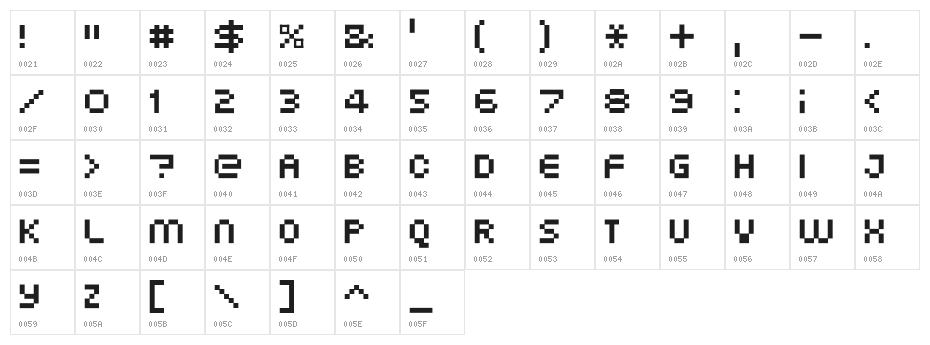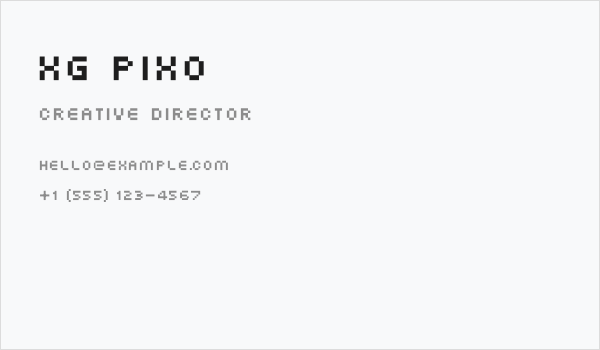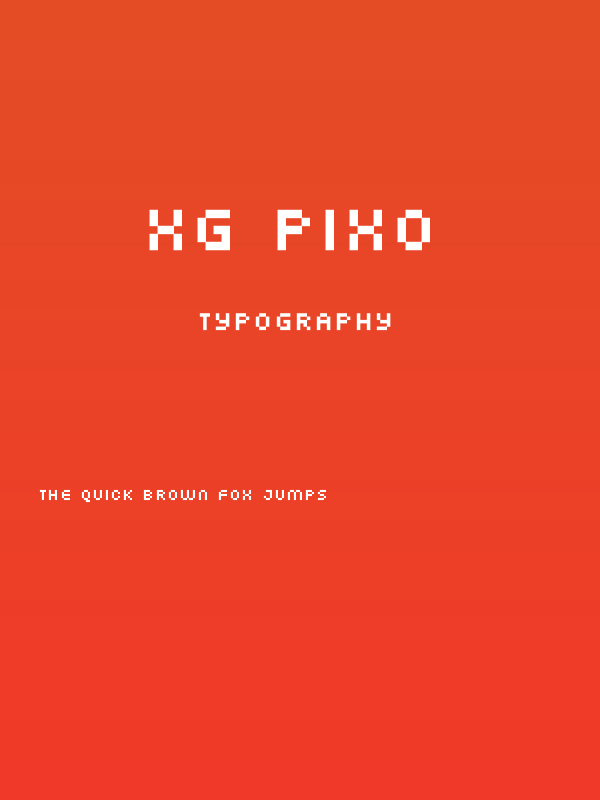
XG pixo Font
XG pixo Description
This font features a pixelated, blocky design reminiscent of early digital displays and video games. Each character is constructed with uniform square blocks, giving it a distinctly retro and digital aesthetic. The uppercase and lowercase letters maintain a consistent height, contributing to a monospaced feel, although the font itself is not strictly monospaced. The numbers and special characters follow the same pixelated style, ensuring a cohesive look across all glyphs. This font's simplicity and geometric precision make it ideal for projects that aim to evoke nostalgia or a tech-inspired theme.
| Overall Style | Retro, Digital |
| Use Case | Logos, Headlines, Digital Art |
| Proposed Projects | Ideal for retro video game graphics, tech-themed posters, digital art projects, and any design requiring a nostalgic digital feel. |